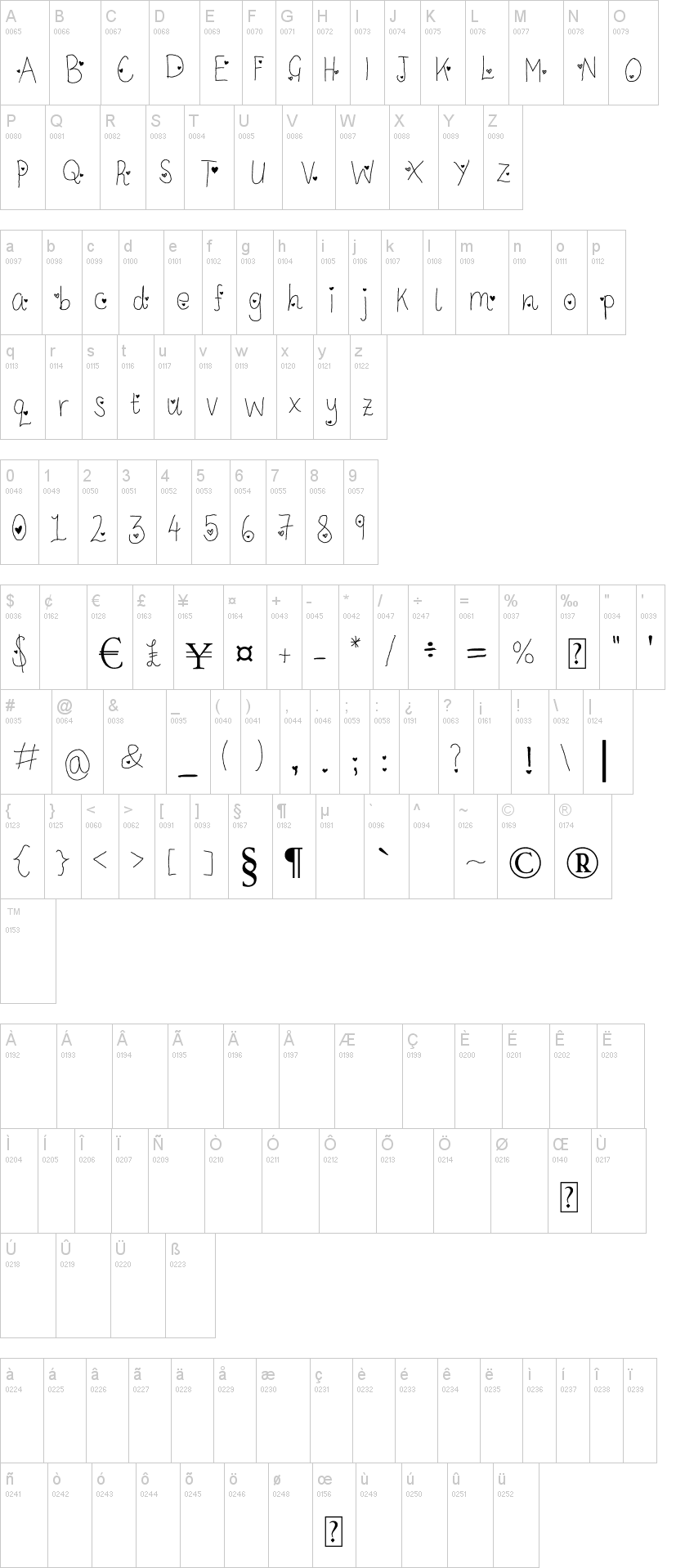
LC Look With Your Heart
LC Look With Your Heart is a handwriting-style font with a warm, natural, and light character. Its design is inspired by handwritten calligraphy, and the lines of the letters are smooth and natural, with certain irregularities and individual characteristics. The LC Look With Your Heart typeface is well spaced between letters without feeling overcrowded or sparse. The size of the font is relatively moderate, easy to read and use. In addition, the font is available in different weights and tilts to meet different occasions and design needs. Overall, LC Look With Your Heart font is very suitable for personalized designs such as handmade products, wedding invitations, holiday greeting cards, etc. It can bring a warm, romantic and natural feeling to people.
LC Look With Your Heart is a very good handwriting art font, with a good visual sense, suitable for cultural propaganda design, commercial brand advertising and product packaging design and personalized text typesetting and other more scenes.